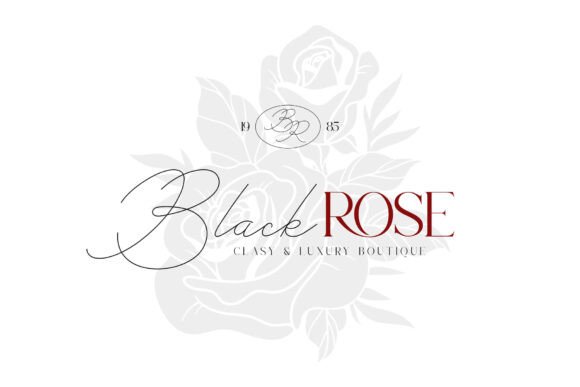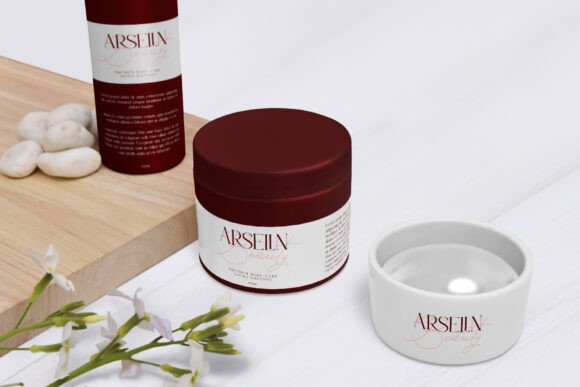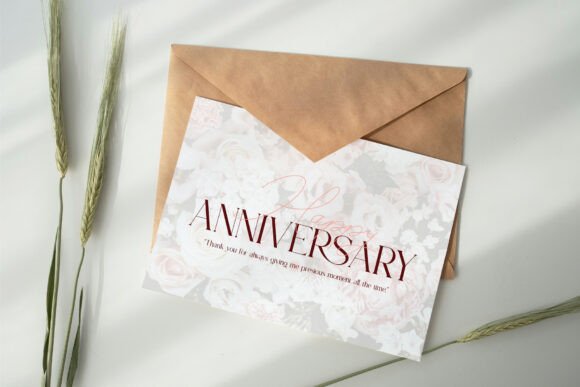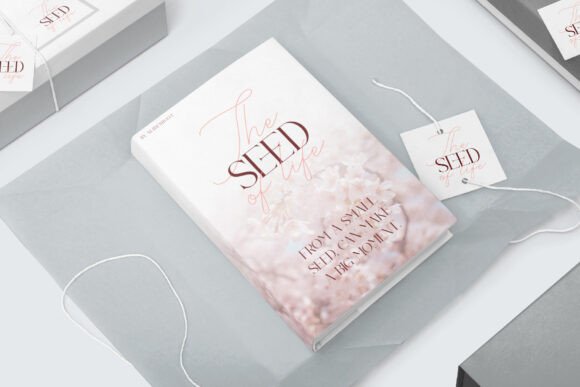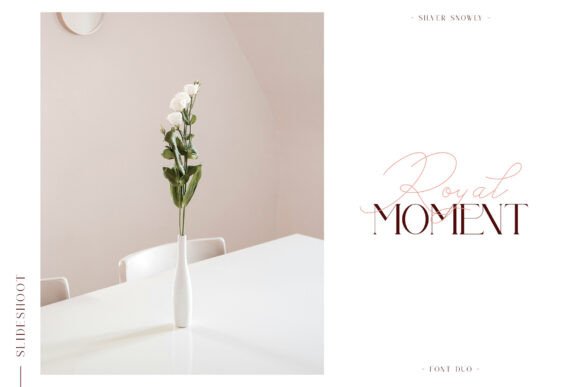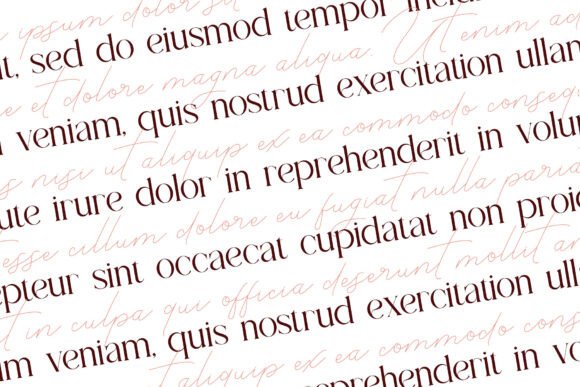
Introduction to Silver Snowly Font
Imagine you’re browsing through a design blog, and you stumble upon a breathtaking poster that catches your eye. The elegant font used in the design is the first thing that draws you in, making you wonder what font it is and how to get your hands on it. This is exactly what happens when you come across the Silver Snowly Font – a beautiful combination of Duo serif and handwritten script fonts that exude elegance and style.
As a designer, you’re constantly on the lookout for high-quality design resources that can elevate your creative projects to the next level. The Silver Snowly Font is a valuable addition to your design library, offering a wide range of applications, from logos and posters to social media graphics and marketing materials. With its stylish alternation and binding, this font is perfect for designers who want to add a touch of sophistication to their designs.
Key Features of Silver Snowly Font
• High-quality design resource ideal for creative projects
• Designed with a unique, elegant aesthetic for a sophisticated look
• Includes a comprehensive character set, including Latin and Cyrillic alphabets
Honest Review: Silver Snowly Font
I recently had the opportunity to work with the Silver Snowly Font on a creative project, and I must say, it’s been a great addition to my design resources. This font is a high-quality resource that offers a lot of versatility.
• ✨ The Silver Snowly Font has a beautiful, elegant design that’s perfect for any project that needs a touch of sophistication.
• ✨ The font is highly customizable, allowing me to adjust the size, color, and style to fit my design needs.
• ⚠️ The font does not come with a transparent background, which can be a bit of a pain when working with complex designs.
• ⚠️ The font is not as extensive as some other font resources, with a limited number of styles and weights.
Overall, I’m really impressed with the Silver Snowly Font. It’s a great addition to any designer’s toolkit, and I would highly recommend it to anyone looking for a high-quality font resource for their creative project.
Common Use Cases for Silver Snowly Font
The Silver Snowly Font is a versatile font that can be used in a variety of creative projects, including logos, branding, and marketing materials. Its high-quality design and transparent background make it perfect for use in digital designs, such as social media graphics and presentations.